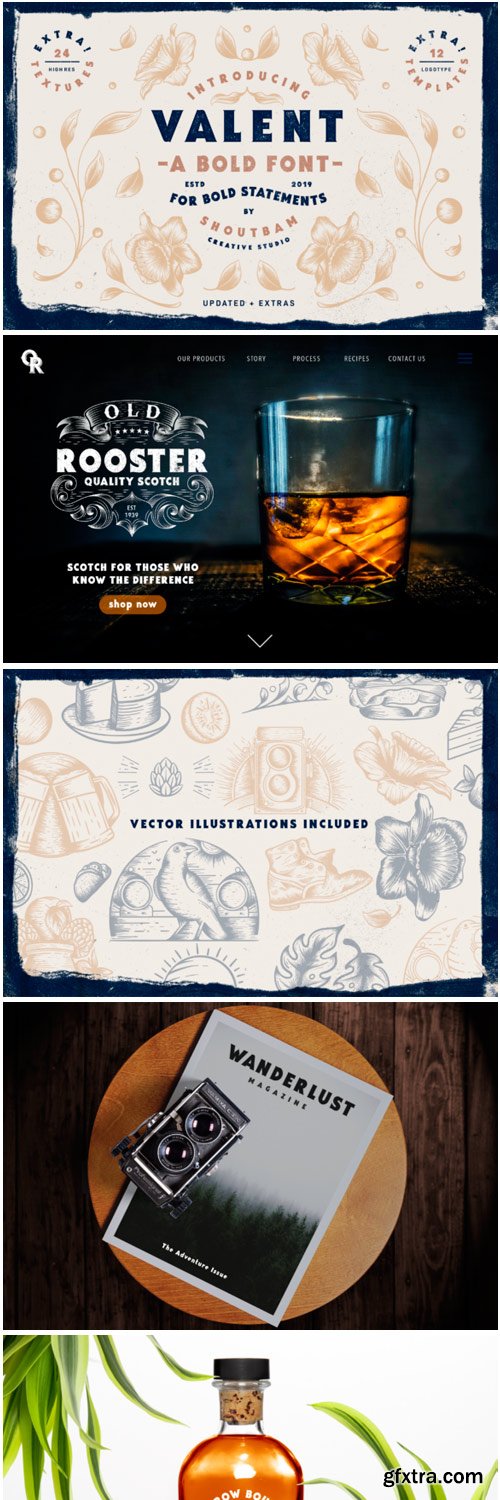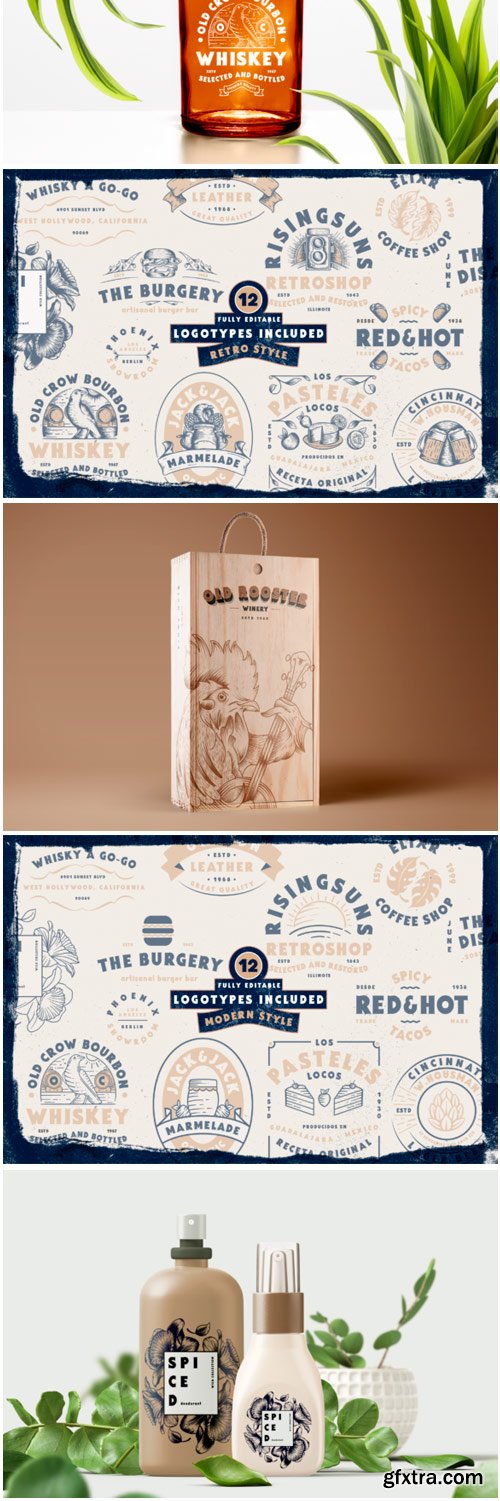
Valent Font
Valent is an amazing serif font with a vintage, yet contemporary feel. Get inspired by this stunning typeface, and turn any design project into a stand out!